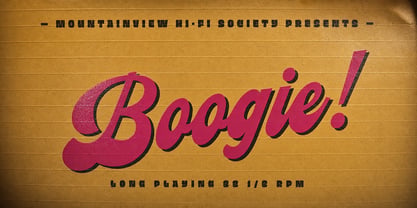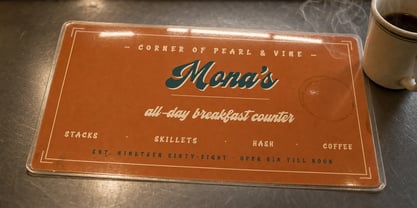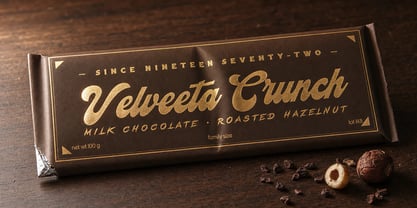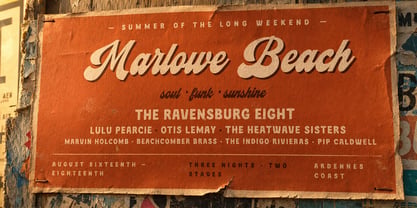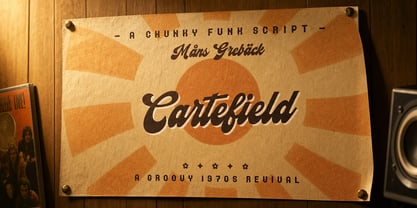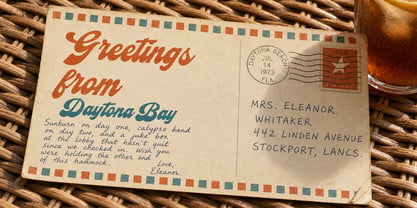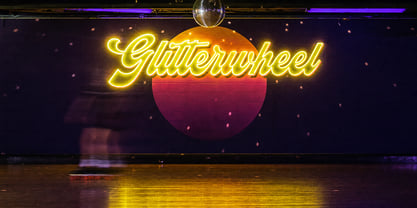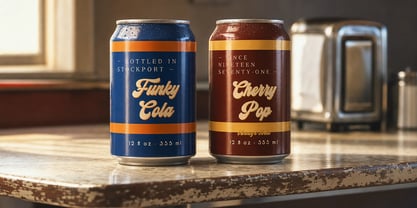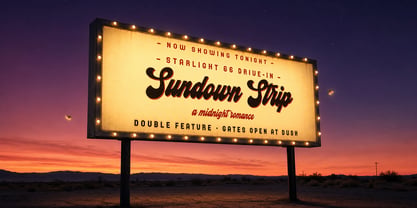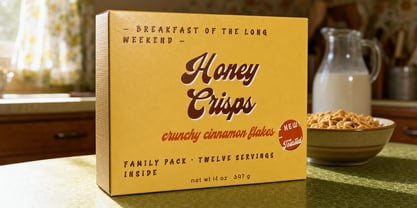
Cartefield
by Mans Greback
The Cartefield Font Family was designed by Måns Grebäck and published by Mans Greback. Cartefield contains 4 styles and family package options. More about this family
Cartefield is a chunky 70s funk script with wide, connected, super-bold letterforms.
Thick rounded strokes, generous bowls, and a slight forward lean — the kind of script you find on a chocolate-bar wrapper or a soul-record sleeve from 1973. Lowercase joins are smooth and the descenders are pronounced, giving it a deep groovy presence on a single line.
Imagine it across the front of a foil-stamped vinyl sleeve with a sunburst printed behind it.
The font is built with advanced functionality and guaranteed top-notch quality, containing stylistic and contextual alternates, ligatures and more automatic and manual features; all to give you full control and customizability.
It has extensive lingual support, covering all Latin-based languages, from North Europa to South Africa, from America to South-East Asia. It contains all characters and symbols you'll ever need, including all punctuation and numbers.
Designed and created by Måns Grebäck.